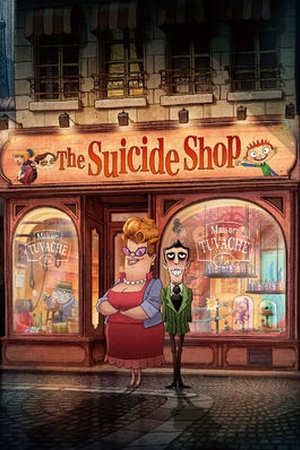
The Suicide Shop Font
AnimationThe Suicide Shop is a 2012 French animated film based on the novel of the same name by Jean Teulé. It follows the story of the Tuvaches, a family who owns a shop that sells all the necessary items for committing suicide.
The Suicide Shop title in the poster uses a narrow wood type style font called Birch designed by Kim Buker Chansler in 1990. Featuring angled serifs, Birch is an extremely legible display typeface.